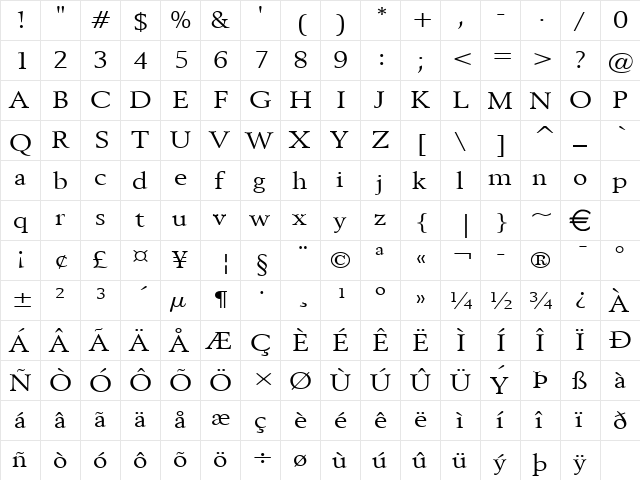
Revive8Wide Normal
Design Context for Revive8Wide Typeface
Revive8Wide is a composed and adaptable typeface that performs quietly and consistently across a wide range of design contexts.